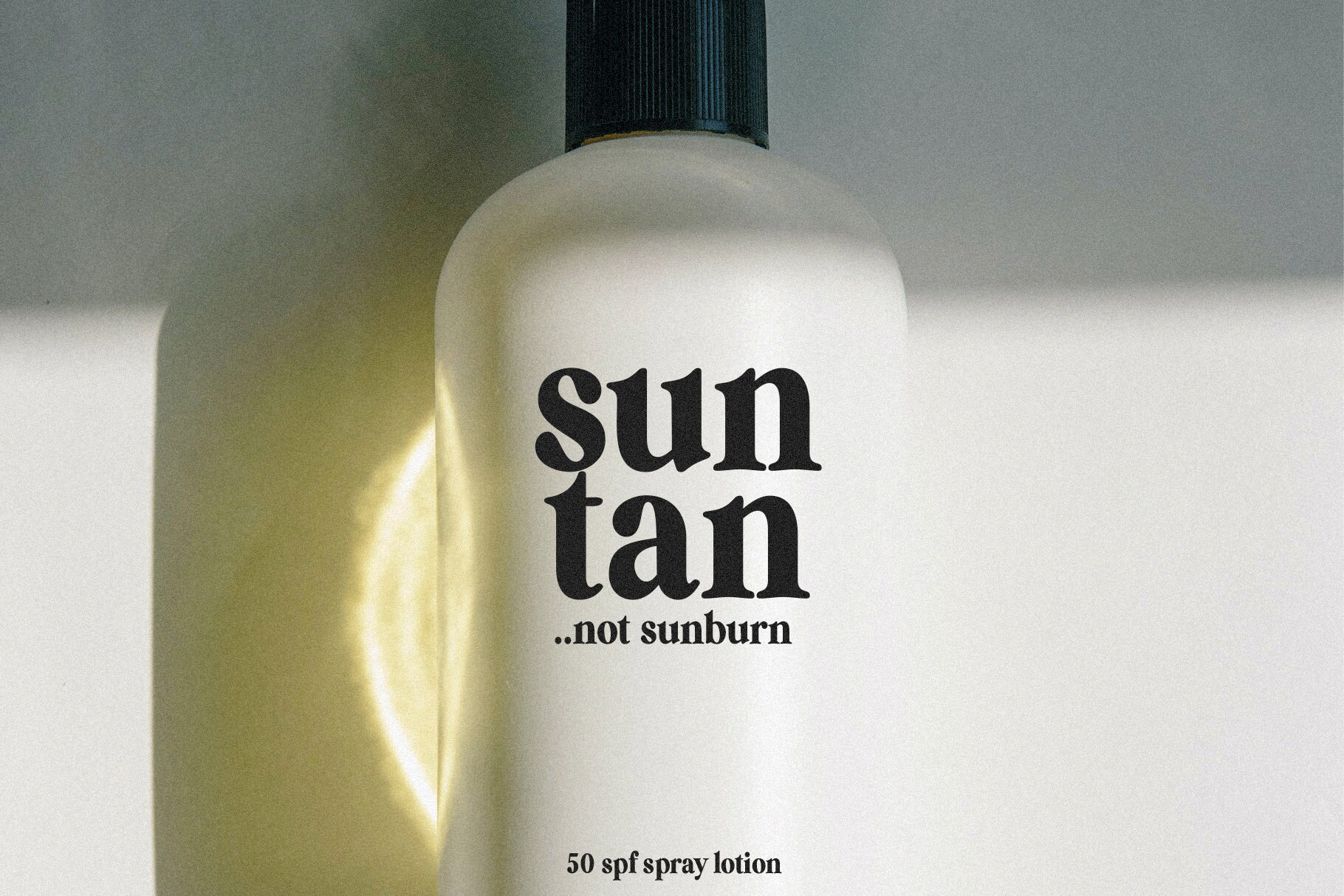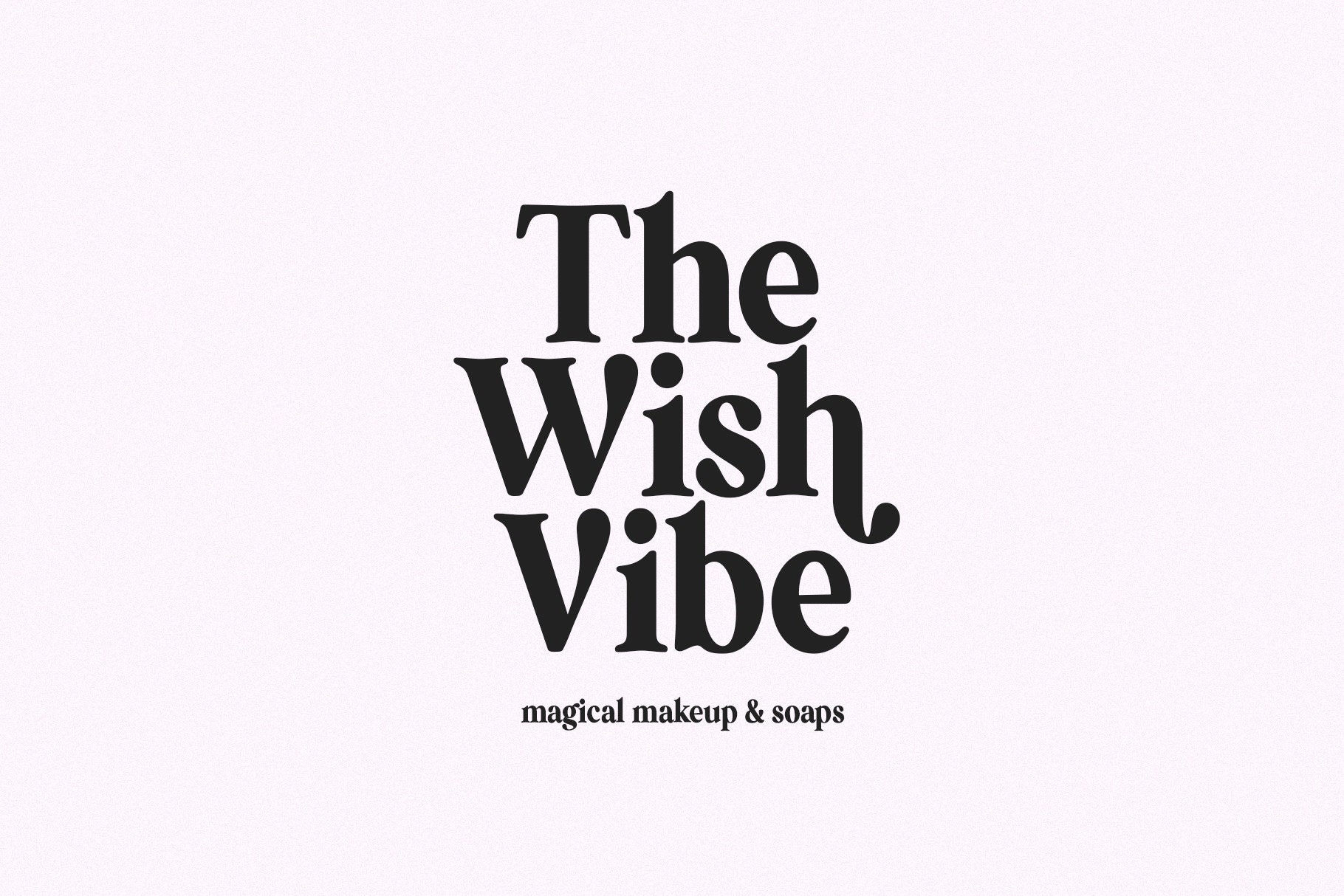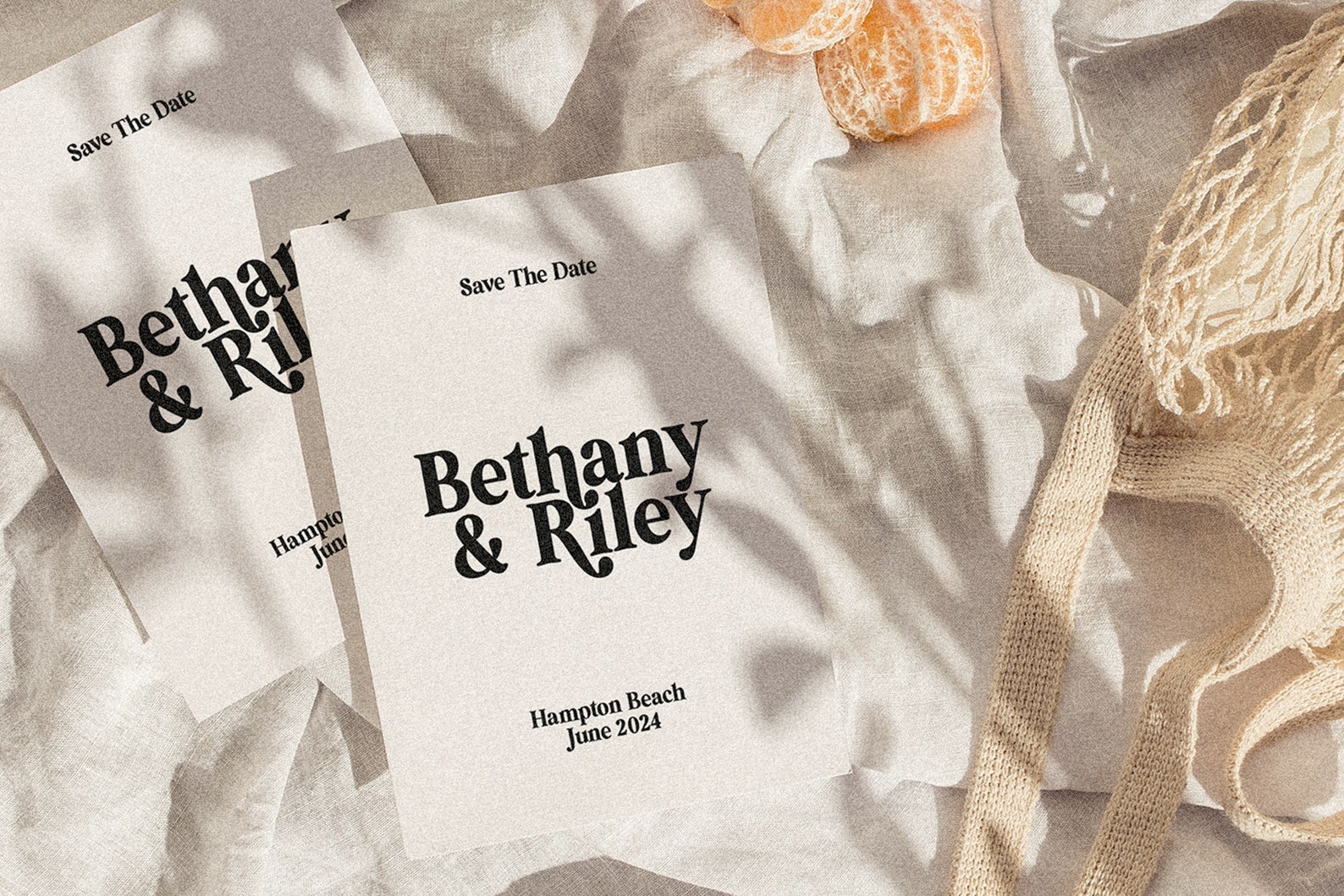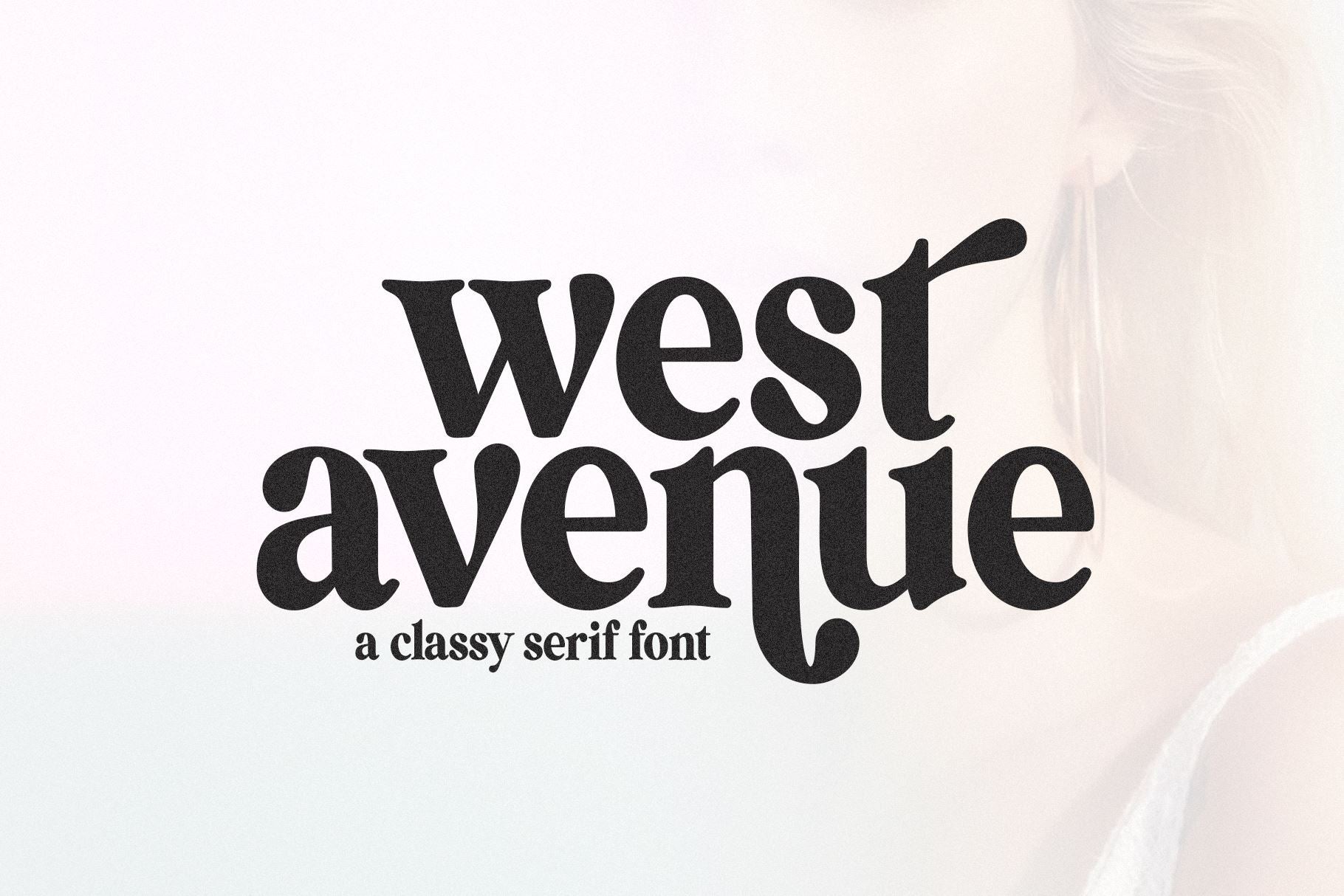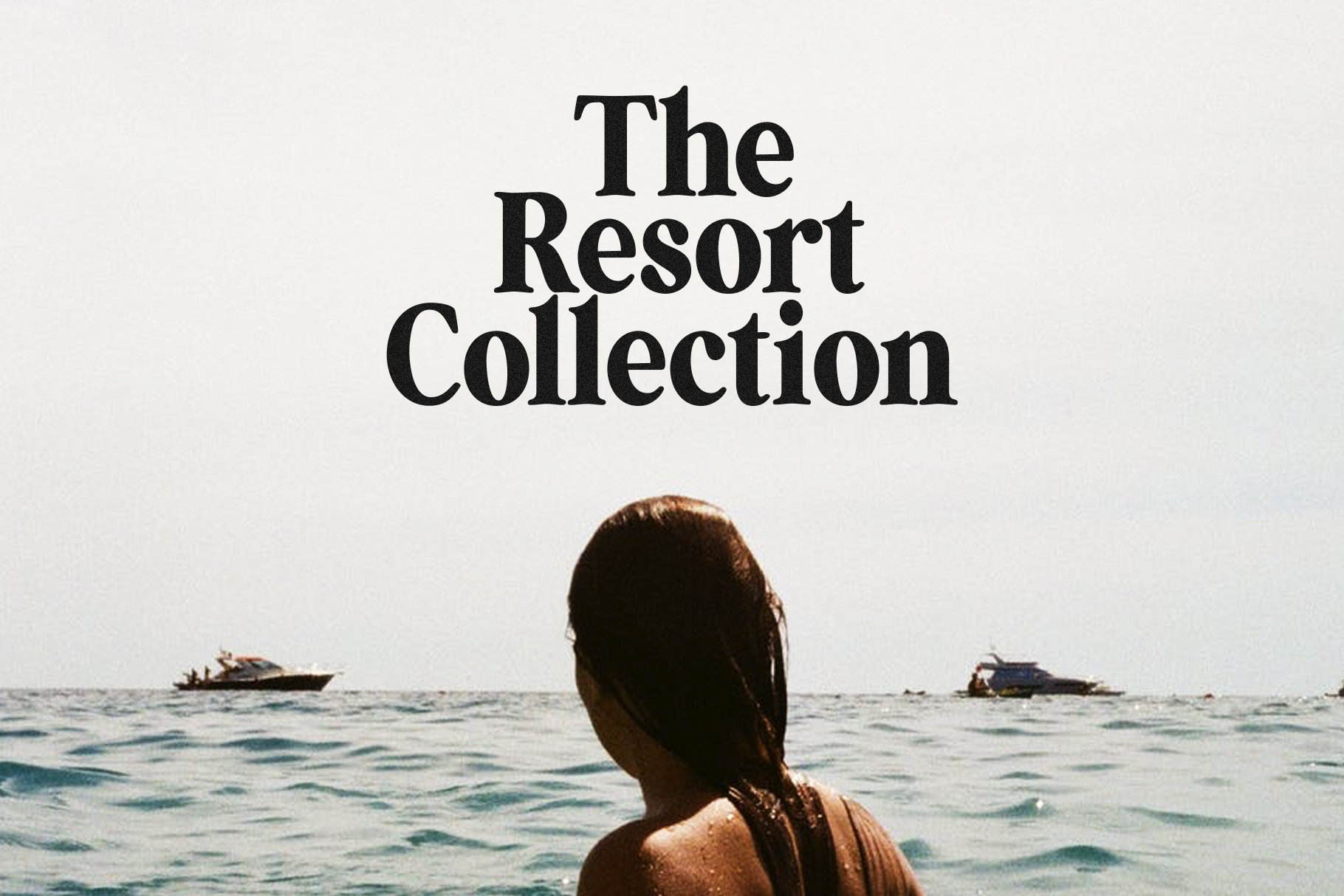
West Avenue Font
West Avenue Font - Bold serif font with a classic and authoritative style. This font features bold, serif characters with a classic and.
Bold serif font with a classic and authoritative style. This font features bold, serif characters with a classic and.
This font features bold, serif characters with a classic and. Bold serif font with a classic and authoritative style.
West Avenue Modern Serif Font By KA Designs TheHungryJPEG
This font features bold, serif characters with a classic and. Bold serif font with a classic and authoritative style.
West Avenue Font Serif Font Modern Font Branding Font Etsy Australia
This font features bold, serif characters with a classic and. Bold serif font with a classic and authoritative style.
West Avenue Font Serif Font Modern Font Branding Font Etsy
Bold serif font with a classic and authoritative style. This font features bold, serif characters with a classic and.
West Avenue Font Serif Font Modern Font Branding Font Etsy Australia
Bold serif font with a classic and authoritative style. This font features bold, serif characters with a classic and.
West Avenue Font Serif Font Modern Font Branding Font Etsy
Bold serif font with a classic and authoritative style. This font features bold, serif characters with a classic and.
West Avenue Font Serif Font Modern Font Branding Font Etsy
This font features bold, serif characters with a classic and. Bold serif font with a classic and authoritative style.
West Avenue Modern Serif Font So Fontsy
Bold serif font with a classic and authoritative style. This font features bold, serif characters with a classic and.
West Avenue Font by KA Design
This font features bold, serif characters with a classic and. Bold serif font with a classic and authoritative style.
Bold Serif Font With A Classic And Authoritative Style.
This font features bold, serif characters with a classic and.